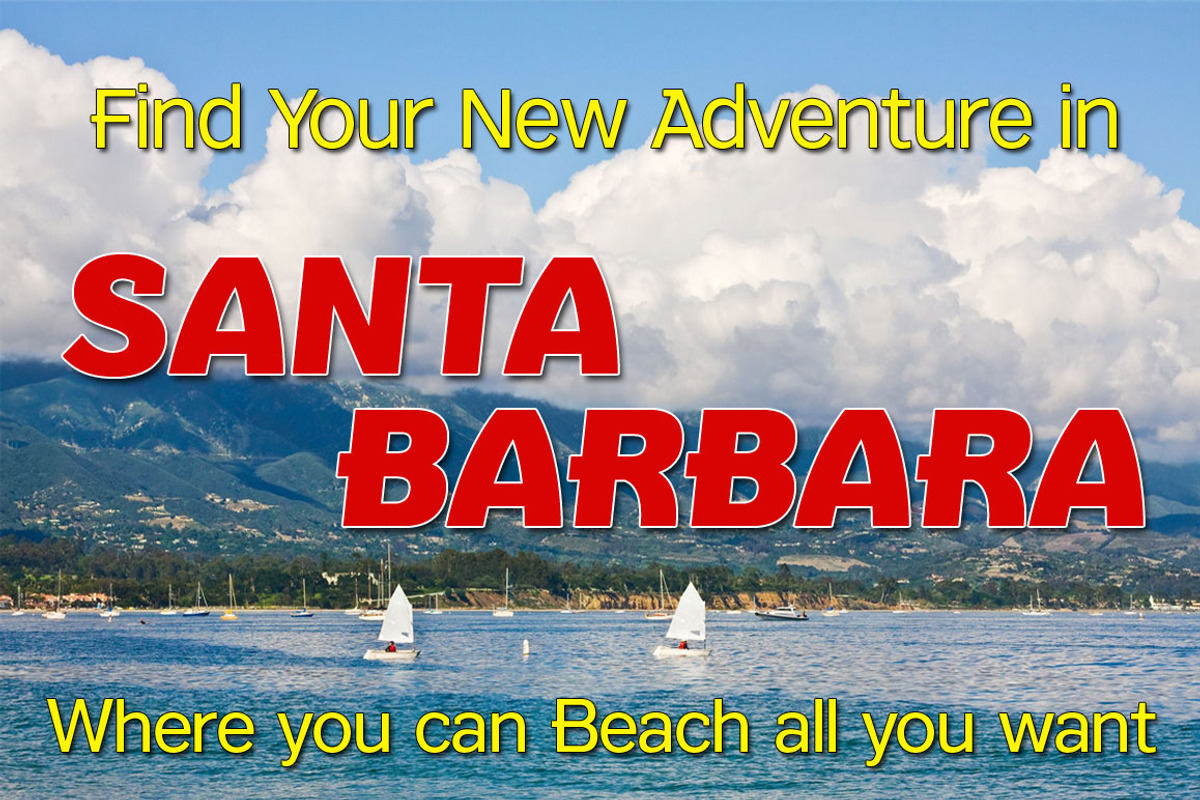
Texicali SC Set
Texicali is a new multiple weight type design based on our FontMesa logo and we're pleased to offer it in individual font sets.
The idea was simple: create a sans serif with a few slab serifs added resulting in a style that could feel at home just about anywhere.
Texicali is available in 8 different sets of 22 fonts each starting with Texicali Regular, Texicali Alt, Texicali S, Texicali Alt S, Texicali SC, Texicali Alt SC, Texicali X & Texicali Alt X.
The regular set works well for general use while the Alt set is perfect for when you want to add a little country charm.
The Alt set has a few additional alternate letters built in which are easily accessed using Adobe Creative Suite products such as Illustrator and In Design.
The X version, with its higher x-height lowercase, is ideal for signage where you want the look of a lowercase, however your sign still needs to be readable from the street.
Larger x-heights also come in handy for web use helping to make the text more readable on smaller devices.